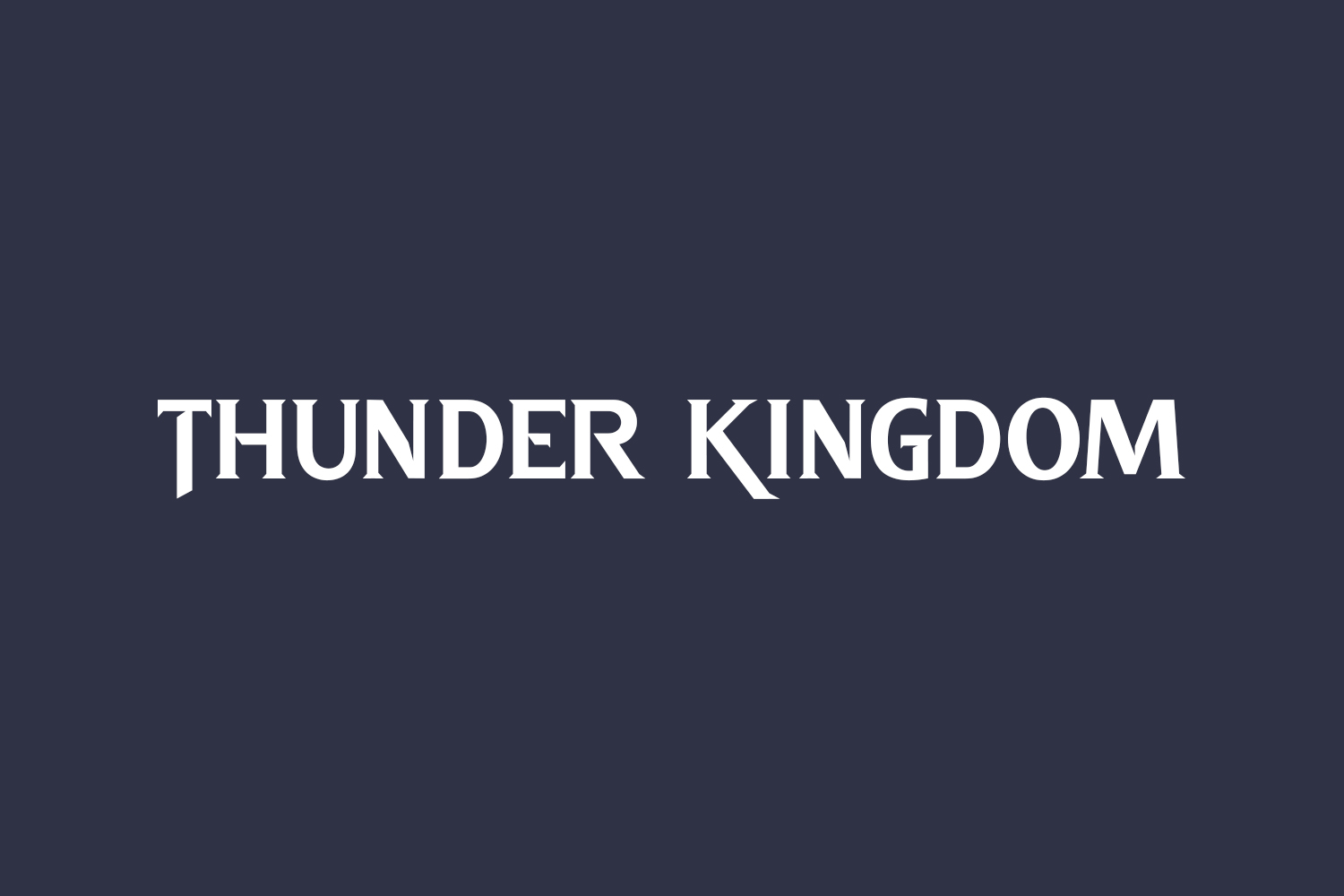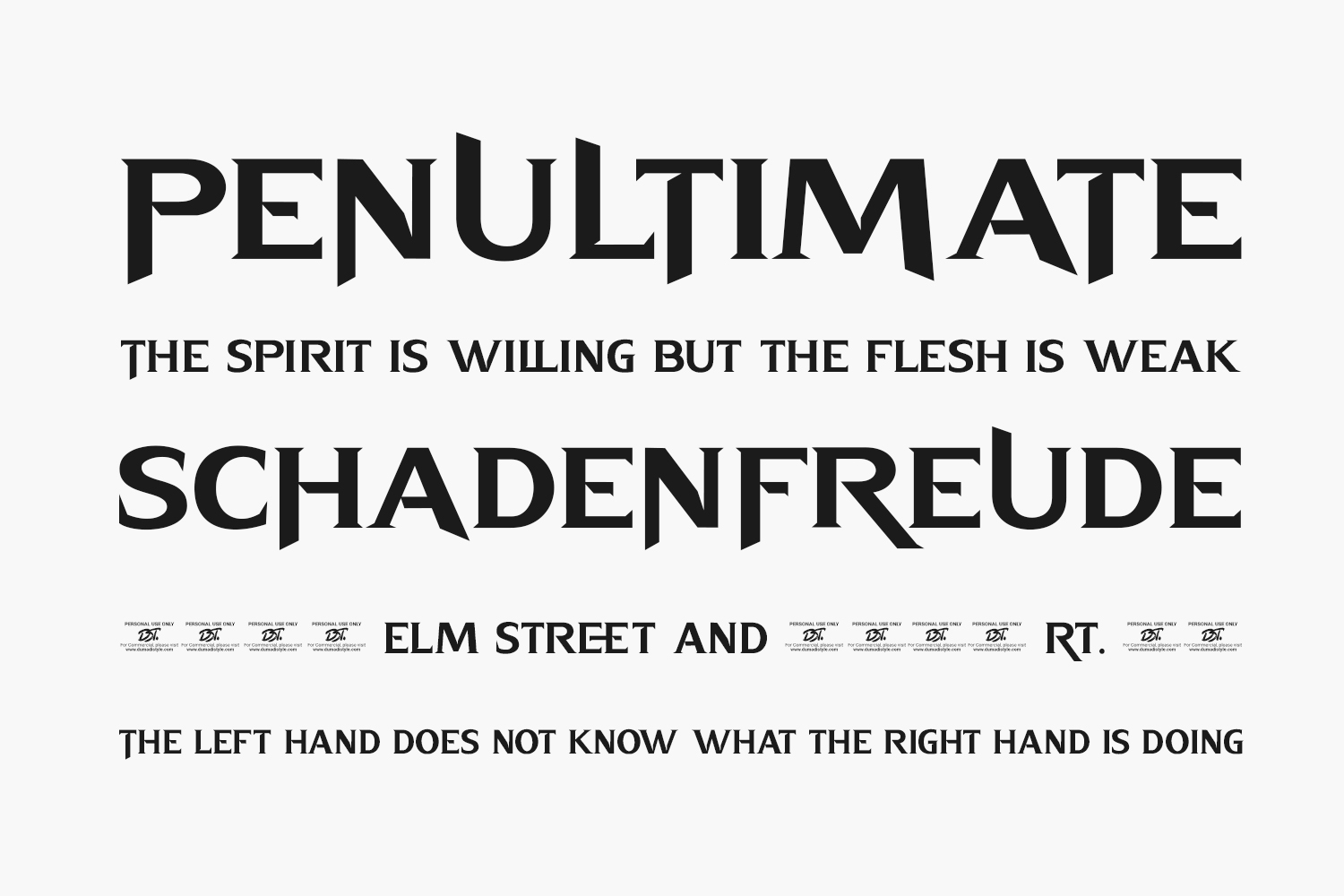
Thunder Kingdom Free Font is a bold and thick lettered display font. Thunder Kingdom Free Font is a demo and free for personal use only. Please purchase the full version for commercial use.